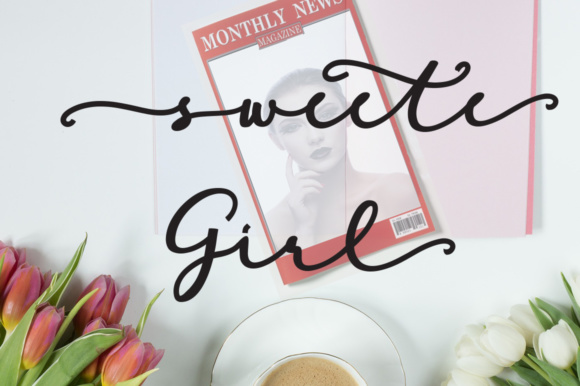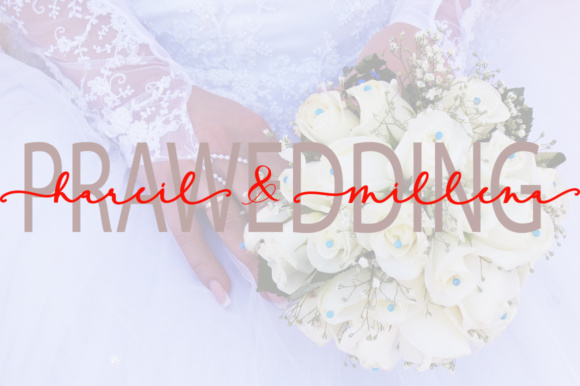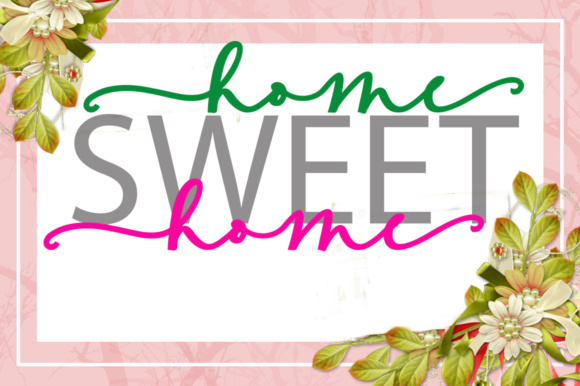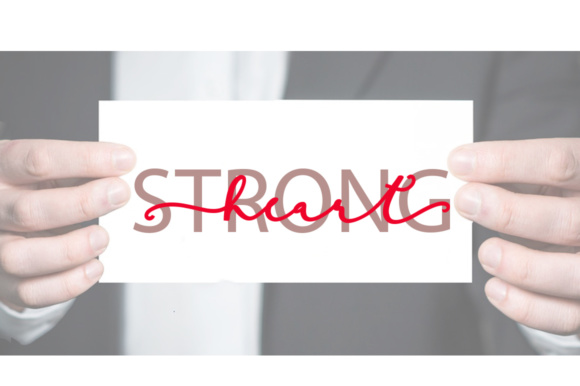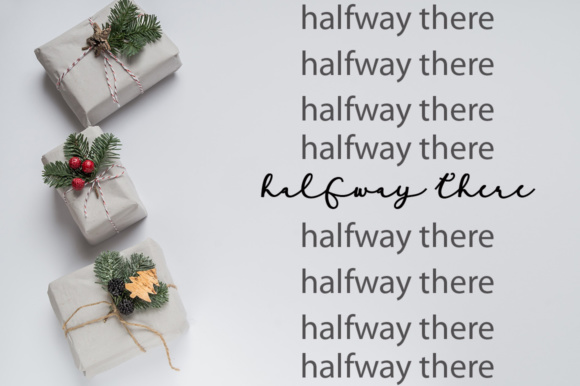
Sweete Girl Font
About Sweete Girl Font
Sweete girl is a crème de la crème modern calligraphy font with contemporary, sophisticated accents. It is perfect for branding, wedding invites and cards.